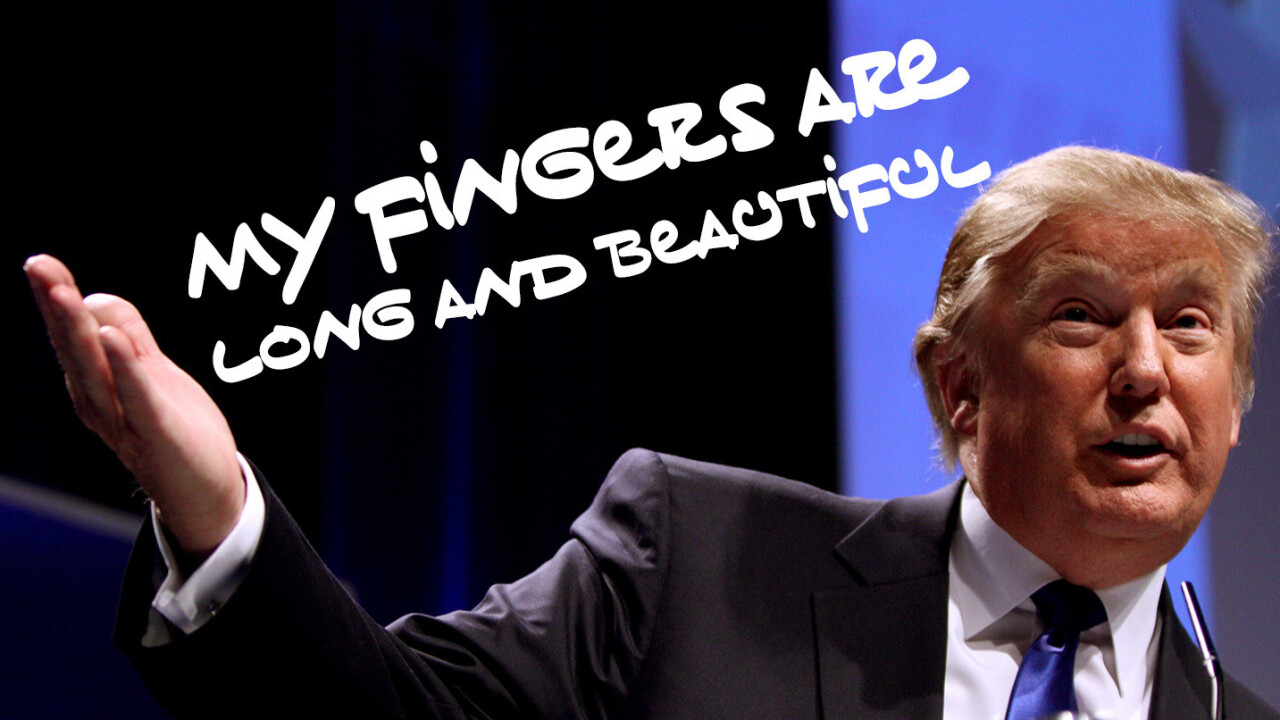
Tiny Hand font mimics Trump’s handwriting and is now available for free
If you want to strategize like Donald Trump, you need to not only think the way he does, but also write like him. And now you can, thanks to Tiny Hand.
The free font, designed by BuzzFeed News’ Mark Davis, is based on The Donald’s handwriting. The publication’s deputy art director Ben King scoured the Web looking for examples of Trump’s penmanship to figure out a way to illustrate this satirical piece on the presidential candidate by James Hannaham and pressed Davis into creating a font.
The excellent all-caps font is now available for free and works great on everything from political posters to mockups of border walls. Grab it from here and make your designs great again.